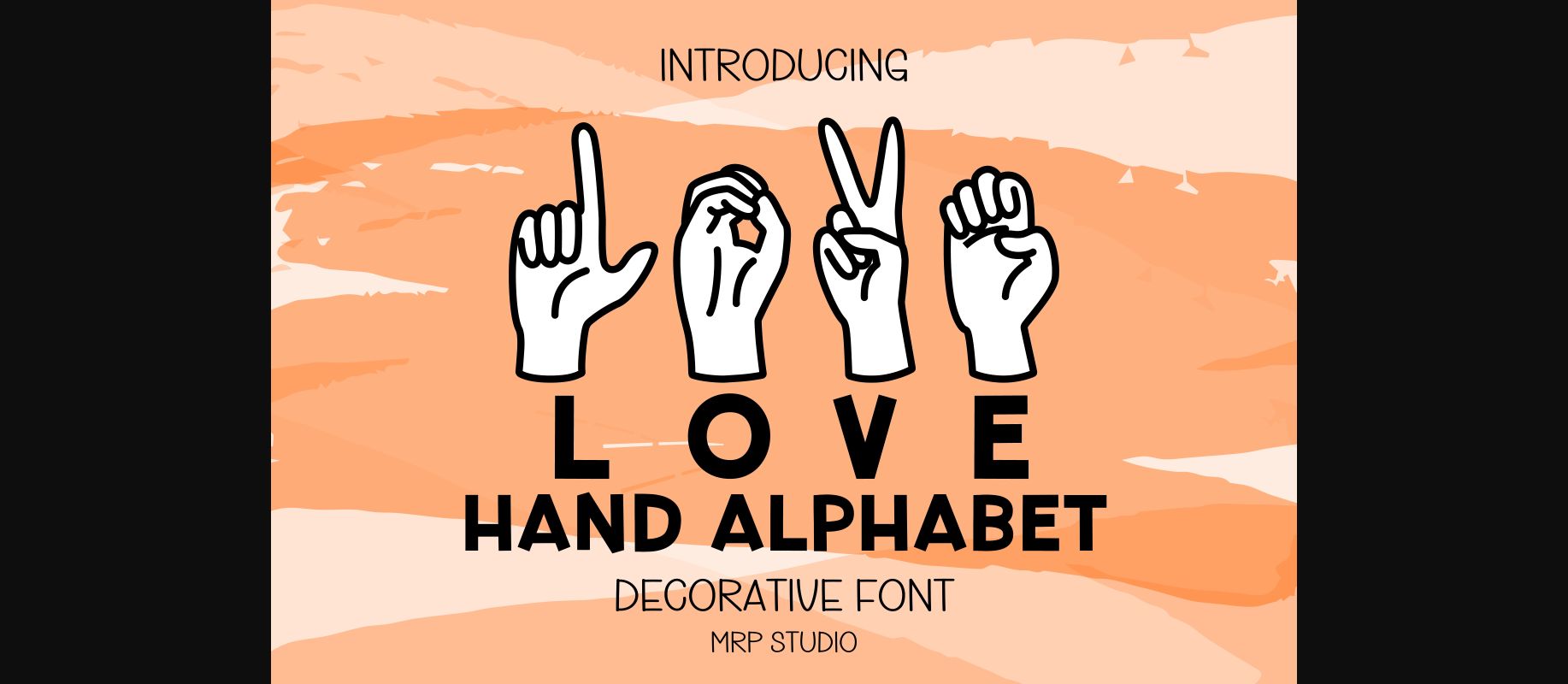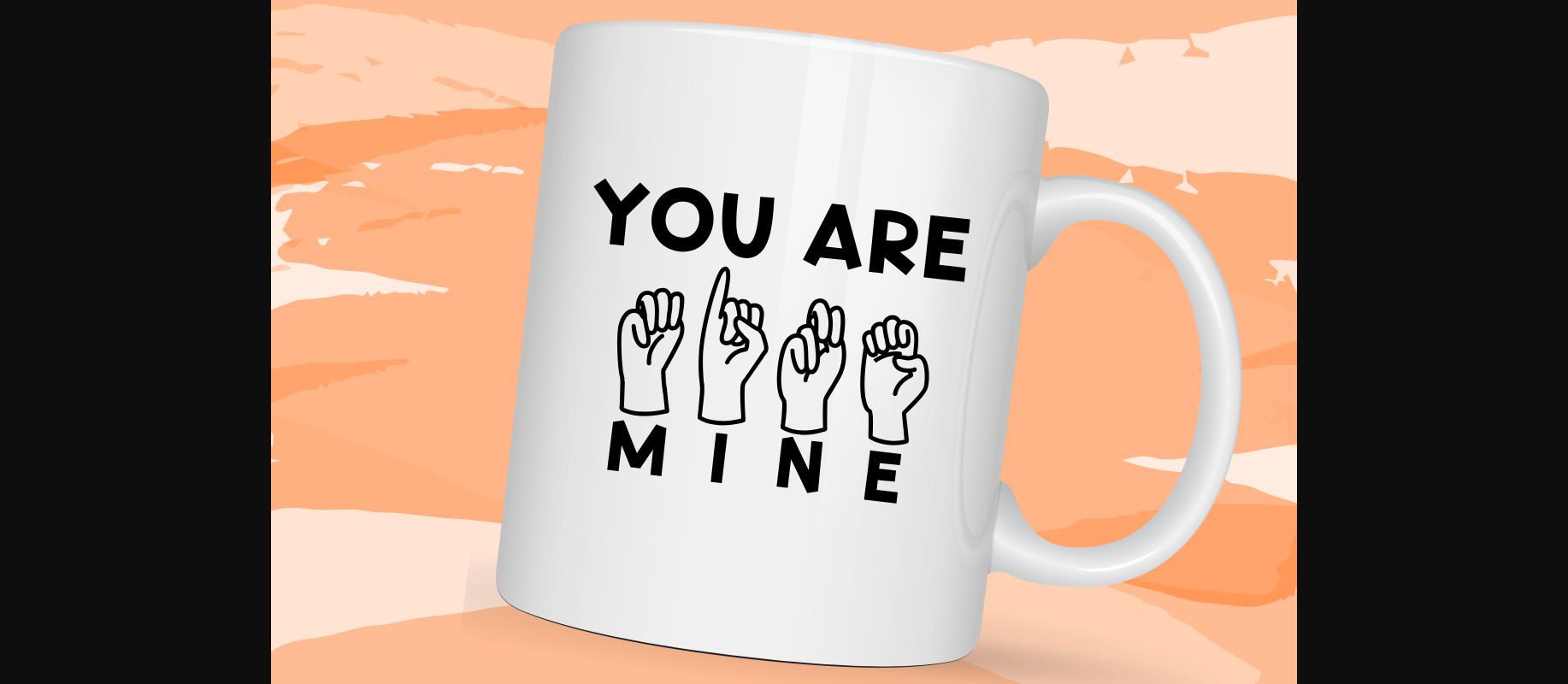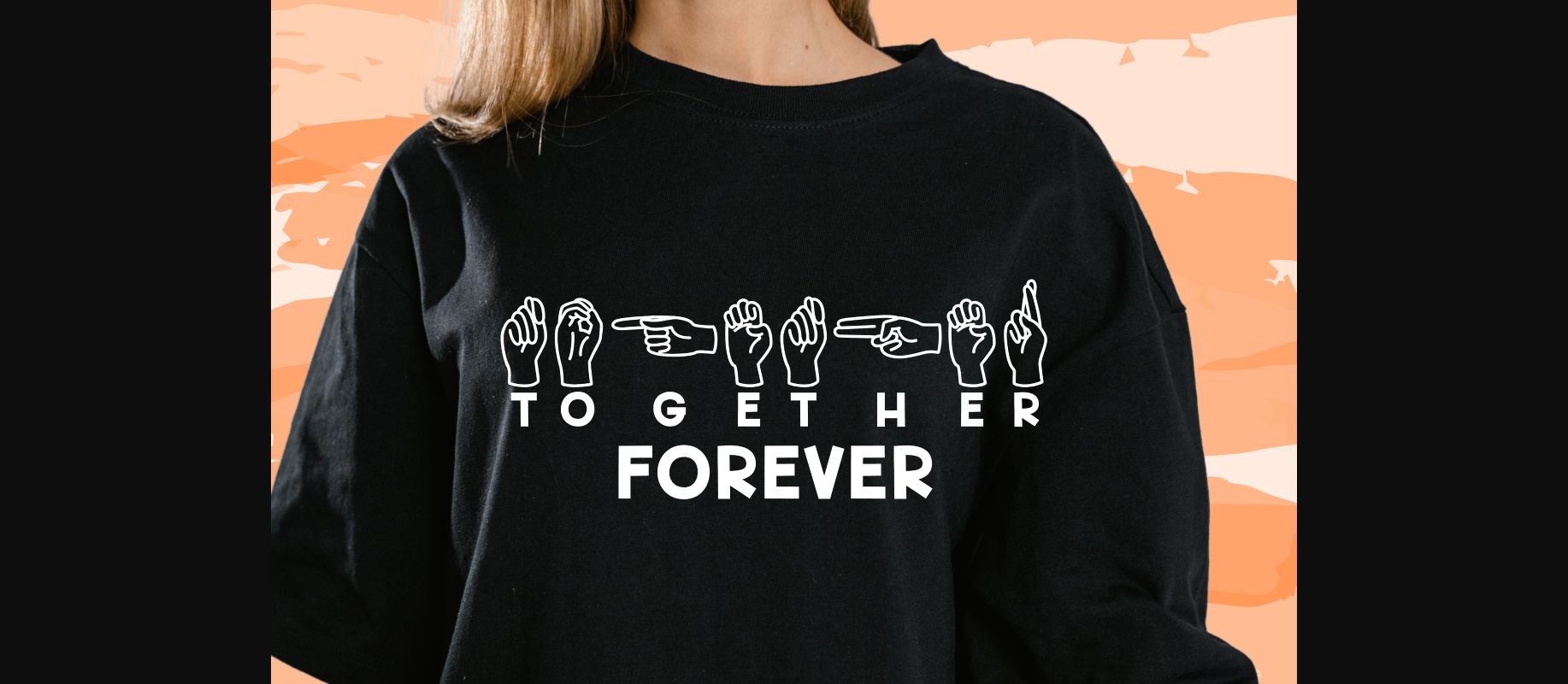
Hand Alphabet Font
About Hand Alphabet Font
Hand Alphabet is designed in a unique and friendly decorative font style for hand language. It would be awesome for your lovely project, party decoration party, digital designs, and much more for any topic which needs bright and fun touch. Let’s try it and add it to your creative ideas and notice how it makes them stand out!